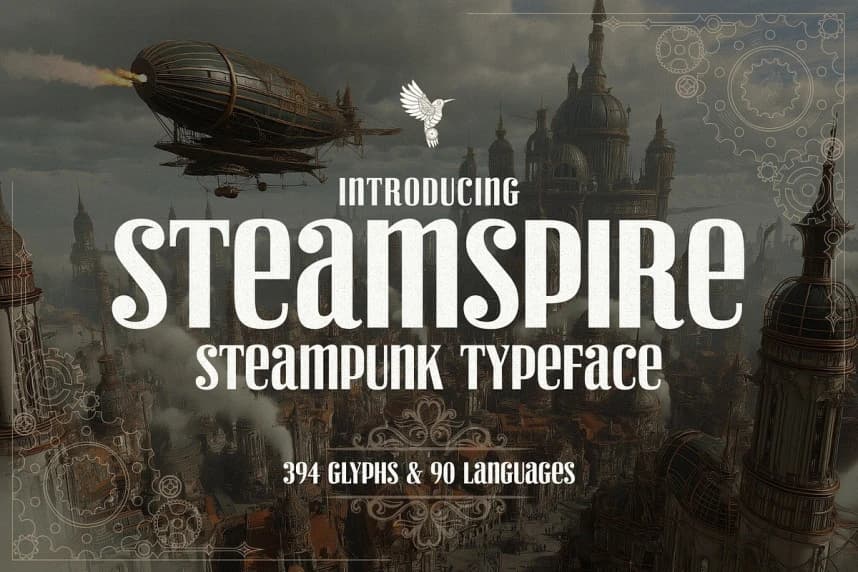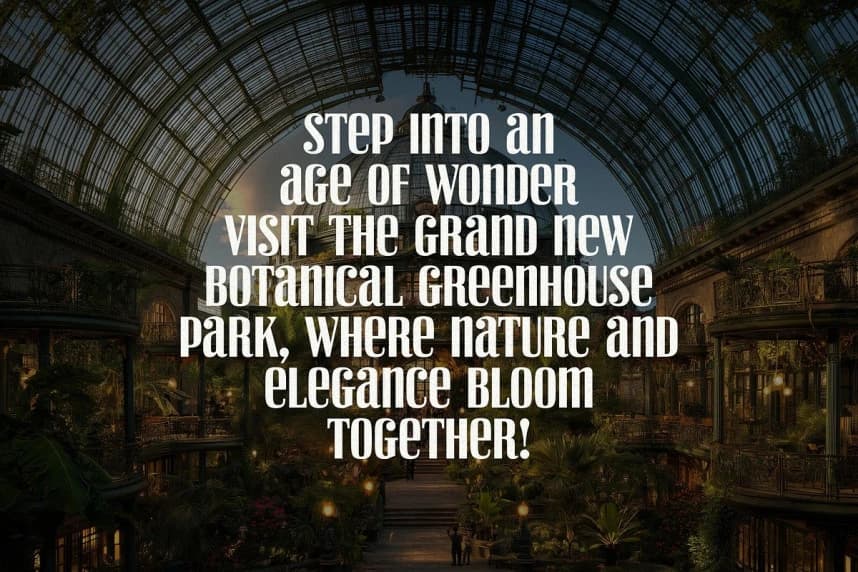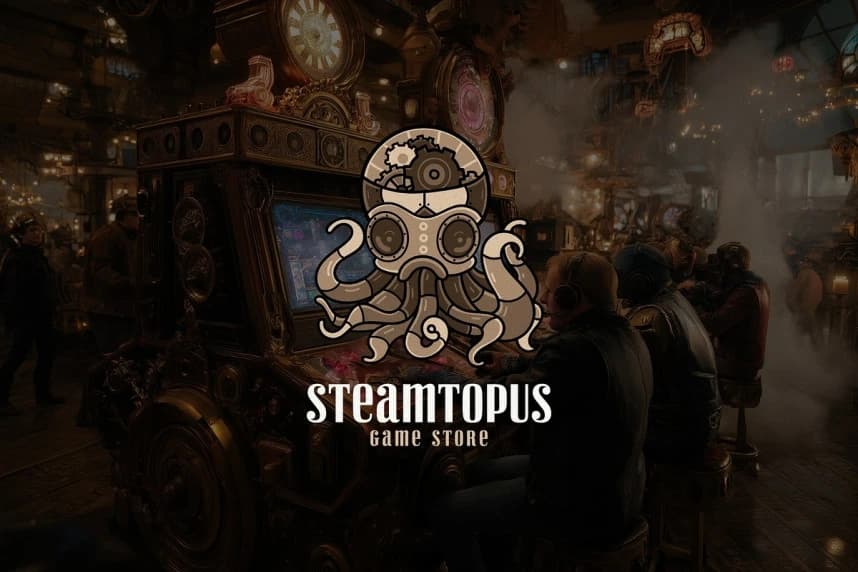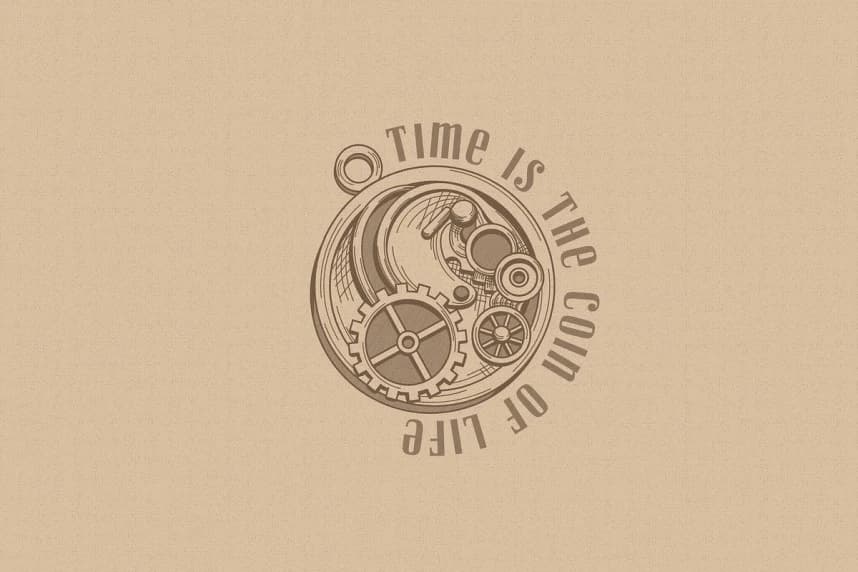
Steamspire Font
Steamspire Font, a striking all-caps serif typeface designed to make every letter feel monumental. Inspired by steampunk aesthetics yet versatile beyond its origins, Steamspire exudes sophistication, authority, and professionalism.